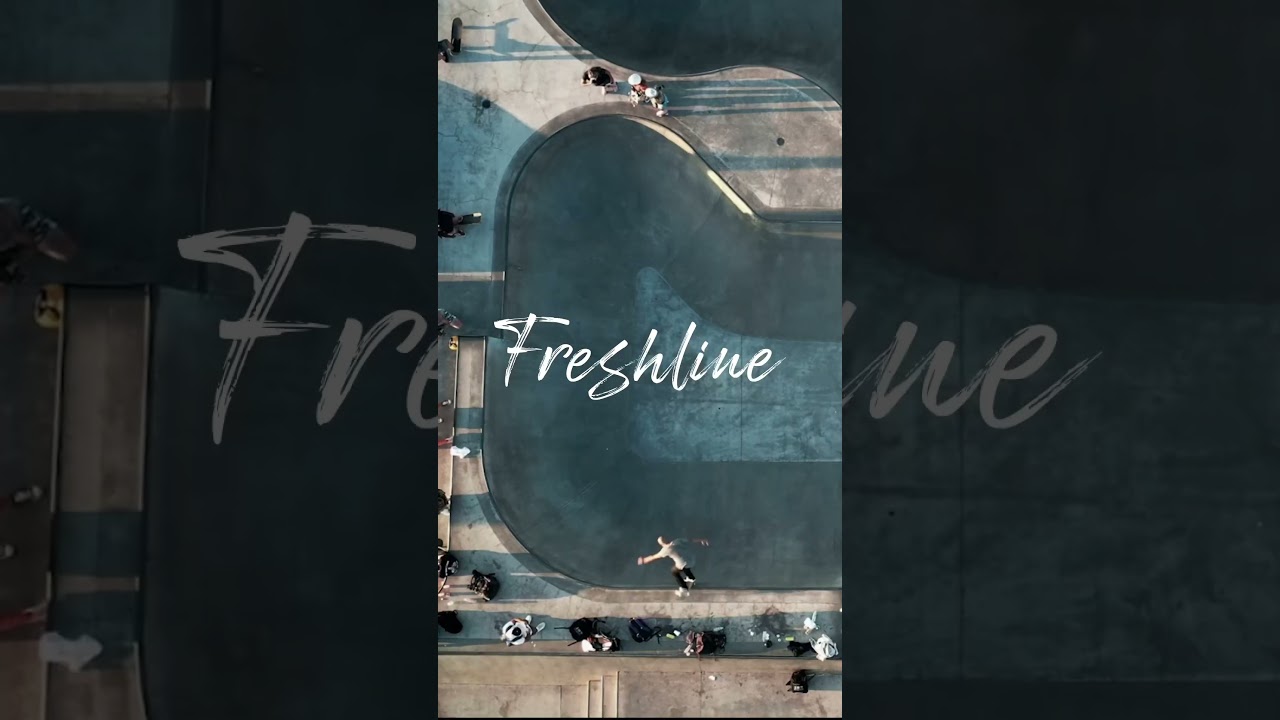
Top 10 Trending Fonts For Designers In 2023 Graphic Eagle What are the finest font trends for 2023? read on to find out about the most exciting font trends and typography trends of 2023 that are not to be missed for the year to come. What are the most popular trending fonts for 2023? here we'll review the font trends for 2022 and explore the trends in fonts for this year.
What Fonts Are Trending Now And Font Trends For 2023 Dezign Ark Font trends in 2023 are a juxtaposition of sturdy, reliable forms and bold, expressive fonts. we've curated the top font trends of 2023 here. Discover 2023's hottest font trends and learn how to incorporate them into your designs with our curated selection of designer typefaces. From reviving the charm of the past to exploring futuristic dimensions, let’s explore the latest font and typography trends that are dominating the design landscape this year. the retro condensed trend is all about bringing back the warmth and nostalgia of vintage fonts. Let’s look at 8 trendy font designs that are relevant right now in 2023. ephemera is the work of designer barrett reid maroney. it draws influence from both blackletter and serif typefaces. this typeface is as contemporary as they come.
Trending Fonts For Logo Design Top Picks For 2023 Logocreator Io From reviving the charm of the past to exploring futuristic dimensions, let’s explore the latest font and typography trends that are dominating the design landscape this year. the retro condensed trend is all about bringing back the warmth and nostalgia of vintage fonts. Let’s look at 8 trendy font designs that are relevant right now in 2023. ephemera is the work of designer barrett reid maroney. it draws influence from both blackletter and serif typefaces. this typeface is as contemporary as they come. These stories illuminate the creative journey of each font, demonstrating the boundless creativity derived from simple concepts. discover interviews with the designers and teams behind the best fonts of 2023 below. They convey personality, mood, and aesthetics, making the choice of fonts a critical decision for designers and content creators. as we delve into 2023, let's explore some popular fonts that are shaping the typographic landscape this year with purple hill studio. And with the variety of possibilities available today, we compiled a list of the top 2023 fonts. the most popular font platforms, including adobe fonts (free to use for all creative cloud members), myfonts, and a few independent type foundries, were used to compile this list of the top 2023 fonts. Discover the top font trends of 2023! from nostalgic and retro styles to bold geometric sans serifs and experimental designs, find the best fonts!.
What Fonts Are Trending Now And Font Trends For 2023 These stories illuminate the creative journey of each font, demonstrating the boundless creativity derived from simple concepts. discover interviews with the designers and teams behind the best fonts of 2023 below. They convey personality, mood, and aesthetics, making the choice of fonts a critical decision for designers and content creators. as we delve into 2023, let's explore some popular fonts that are shaping the typographic landscape this year with purple hill studio. And with the variety of possibilities available today, we compiled a list of the top 2023 fonts. the most popular font platforms, including adobe fonts (free to use for all creative cloud members), myfonts, and a few independent type foundries, were used to compile this list of the top 2023 fonts. Discover the top font trends of 2023! from nostalgic and retro styles to bold geometric sans serifs and experimental designs, find the best fonts!.